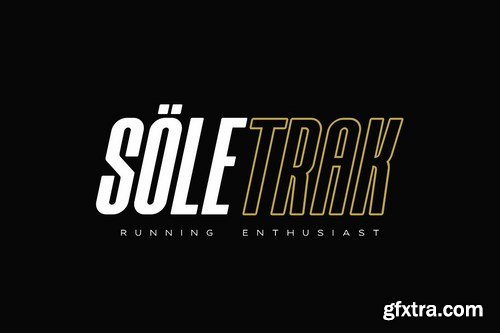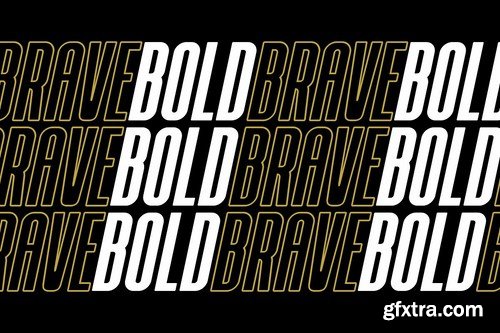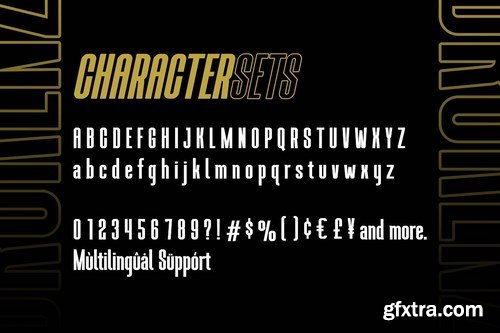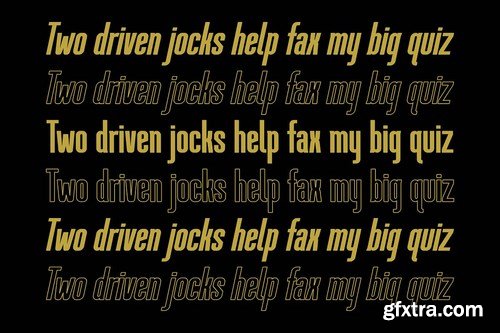
Introducing BROKENZ - Bold Sans Condensed fonts with 4 styles with strong and challenging nuances. very suitable for the title, typography, clothes, magazines, brochures, packaging and much more for your design needs, making your designs more modern and professional